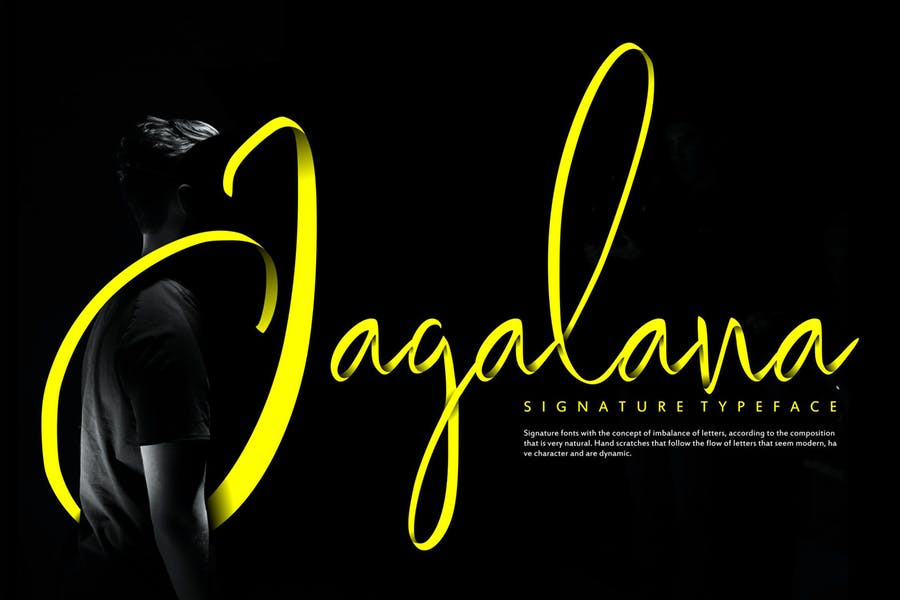
Jagalana Font
Jagalana Font is perfect for exotic branding, tropical designs, adventure themes, wildlife projects, nature conservancy, ethnic restaurants, cultural tourism, jungle expeditions, environmental campaigns, and mysterious visual communications. This captivating typeface excels in both digital and print applications requiring wild authenticity.
Jagalana Font is exciting because it captures the untamed spirit of exotic wilderness with distinctive letterforms that evoke adventure and natural mystery while maintaining excellent readability. Its wild character creates memorable brand experiences that resonate with audiences seeking adventure, exploration, and connection to untamed nature.
The Jagalana Font family includes regular, bold, light, italic, condensed, extended, and wild variants, providing designers with comprehensive typographic options for various design scenarios and adventure communication requirements.
Jagalana Font embodies the primal essence of wilderness exploration, delivering exceptional typography that reflects the exotic beauty and untamed power associated with tropical jungles and wildlife adventures. This captivating typeface draws inspiration from jungle expeditions, wildlife encounters, and exotic cultures to create letterforms that communicate adventure, mystery, and natural authenticity. The font's wild character makes it particularly valuable for wildlife organizations, adventure tourism, environmental groups, and exploration brands that require typography capable of conveying natural authority, adventure excitement, and exotic appeal.
The organic construction of Jagalana Font demonstrates masterful understanding of natural design principles, with flowing proportions and distinctive details that create compelling visual compositions reminiscent of jungle environments and wildlife habitats. This adventurous approach ensures excellent performance across diverse applications, from conservation campaigns to adventure marketing where exotic appeal enhances brand authenticity and environmental credibility. The font's mysterious qualities make it especially effective for brands in eco-tourism, wildlife conservation, adventure gear, and cultural exploration that celebrate natural beauty and environmental preservation.
Creative professionals working with Jagalana Font Free Download will appreciate the typeface's versatility across exotic and contemporary design challenges. Its wild styling bridges natural authenticity with modern adventure aesthetics, making it suitable for established conservation organizations and innovative adventure companies requiring distinctive, memorable typography with exotic appeal. The font's captivating presence makes it particularly effective for nature documentaries, adventure parks, eco-resorts, and environmental organizations that must communicate wilderness through compelling, authentic visual design.
Whether developing adventure brand identities, creating environmental communications, or designing expedition marketing materials, Jagalana Font provides the wild authenticity needed for communications that inspire exploration and celebrate natural wonder while maintaining professional standards and achieving genuine connection with audiences who appreciate wilderness adventure and environmental conservation.